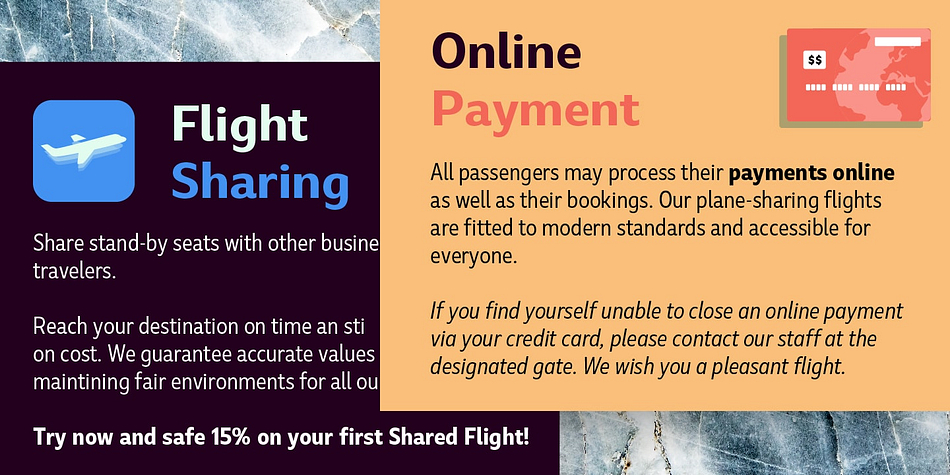
Marble
Designed by Alessia Mazzarella and Vaibhav Singh, Marble is a sans serif font family. This typeface has one hundred and ten styles and was published by URW Type Foundry.
Marble is part of Asterisk Type Collection by URW Type Foundry.
Marble is a modern sans serif with a distinct character and comes in 108 styles plus Variable Fonts. It grew from the desire to create full bodied letters in contrast to the economy of most sans serif faces. Designed for corporate and publishing use it is rounded and approachable, its three styles (Condensed, Normal and Wide) range from slender elegance to warmth and playfulness without ever being informal.
Designed by Vaibhav Singh and Alessia Mazzarella, Marble derives its character from the generous roundness of the x-heights which is balanced by the striking horizontal or vertical cuts to the terminals.  The result is a readable font that encourages the eye to move from one shape to the next and that offers a range of possibilities for digital and print.
The Marble family has nine weights in Latin for each variant.  Eminently versatile, it’s ideal for establishing hierarchies of information with a wealth of choices for headlines, subheadings, captions and body copy styles that are all in harmony with each other.  The Wide style allows headlines to be set with width and presence.